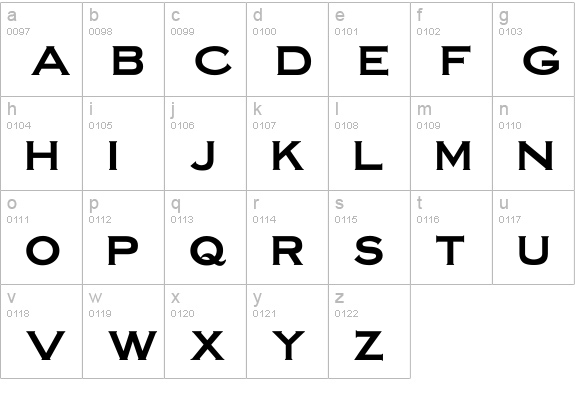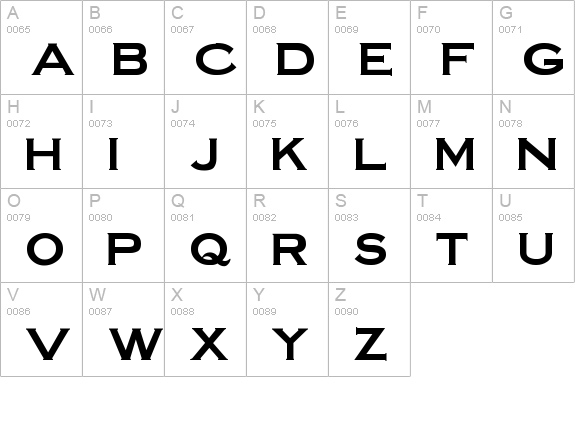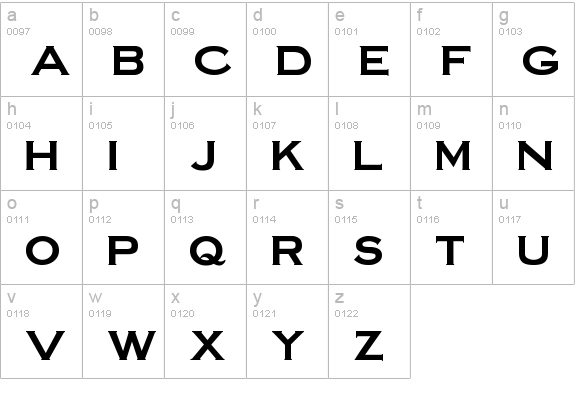
IrronplateGothicBold Font Details
IrronplateGothicBold is a stunning and bold font that exudes a sense of strength and power. With its perfectly balanced letterforms and strong, geometric shapes, this typeface is bound to make a lasting impression. Its clean and precise design gives it a modern and sophisticated look, making it perfect for a wide range of design projects. The bold and commanding nature of IrronplateGothicBold makes it an ideal choice for headlines, titles, logos, and any other design element that needs to grab attention. Its bold weight ensures that your message will be conveyed with confidence and impact. What makes IrronplateGothicBold even more appealing is the fact that it is available for free download at FontsMarket.com. This means that designers and creatives can easily access this incredible font without any cost. Whether you are a professional designer or a hobbyist, IrronplateGothicBold offers you the opportunity to elevate your designs without breaking the bank. The versatility of IrronplateGothicBold allows it to be used across various design applications, from print to digital media. Its strong presence and legibility make it perfect for posters, advertisements, packaging, websites, and more. No matter the project, IrronplateGothicBold will add a touch of elegance and professionalism. With its free availability on FontsMarket.com, IrronplateGothicBold is a font that should not be missed. Download it today and unlock its powerful potential to enhance your design projects and captivate your audience.